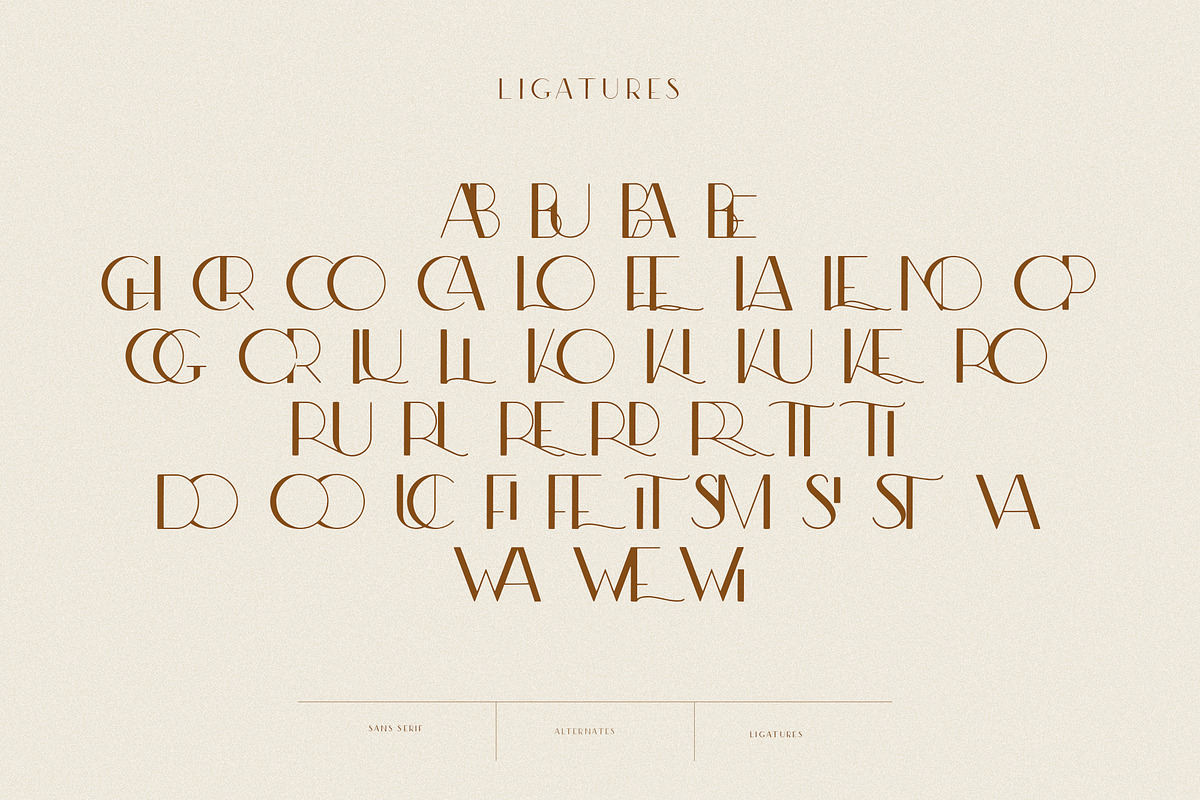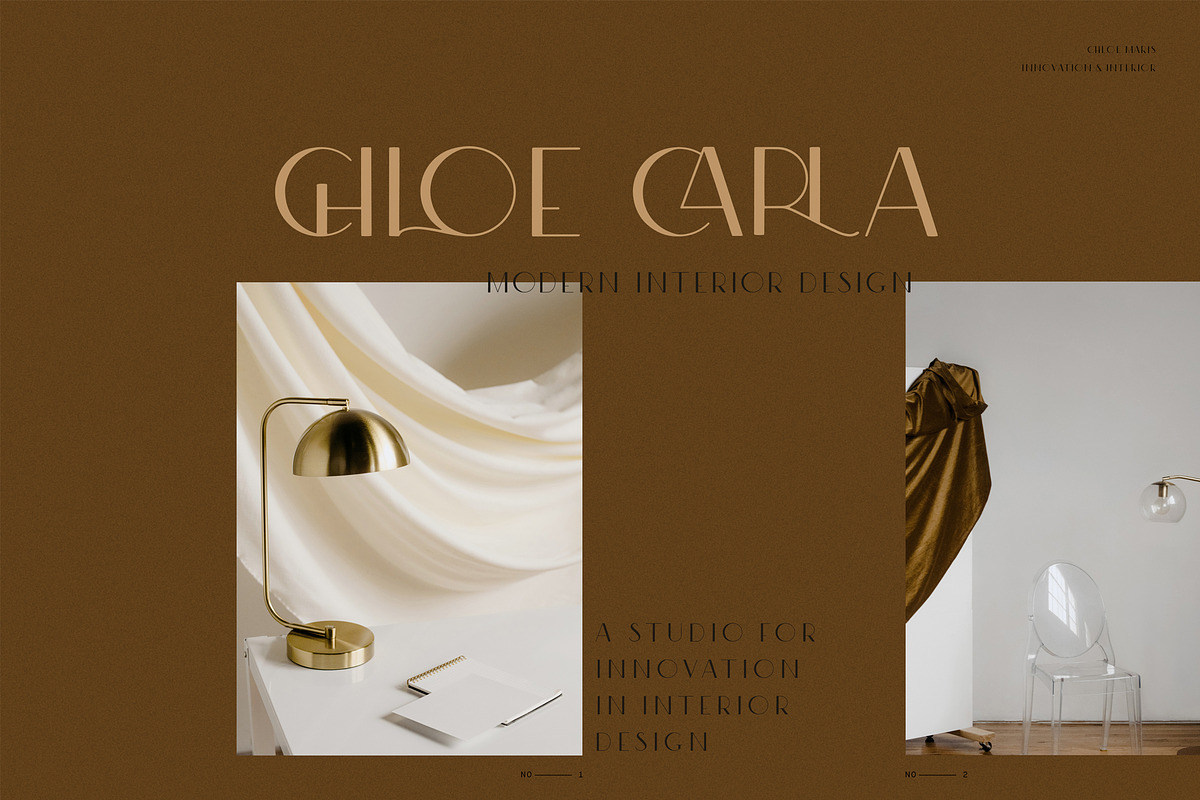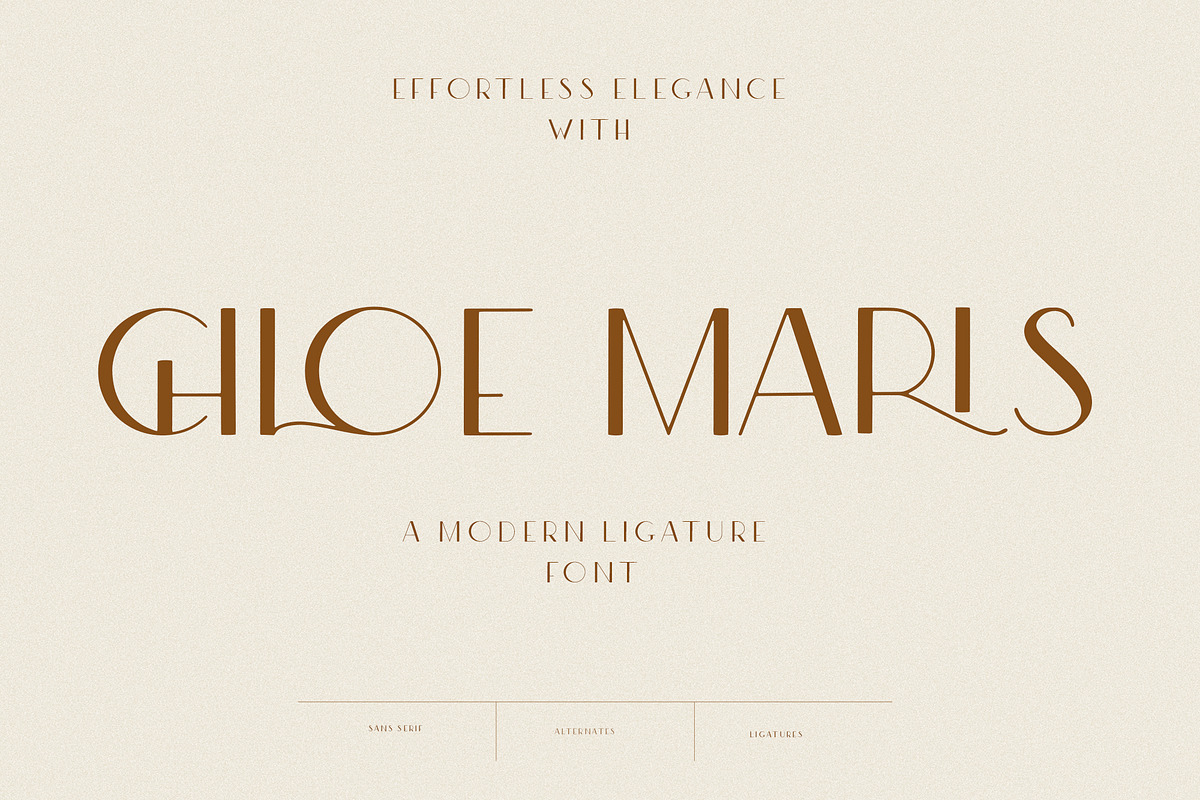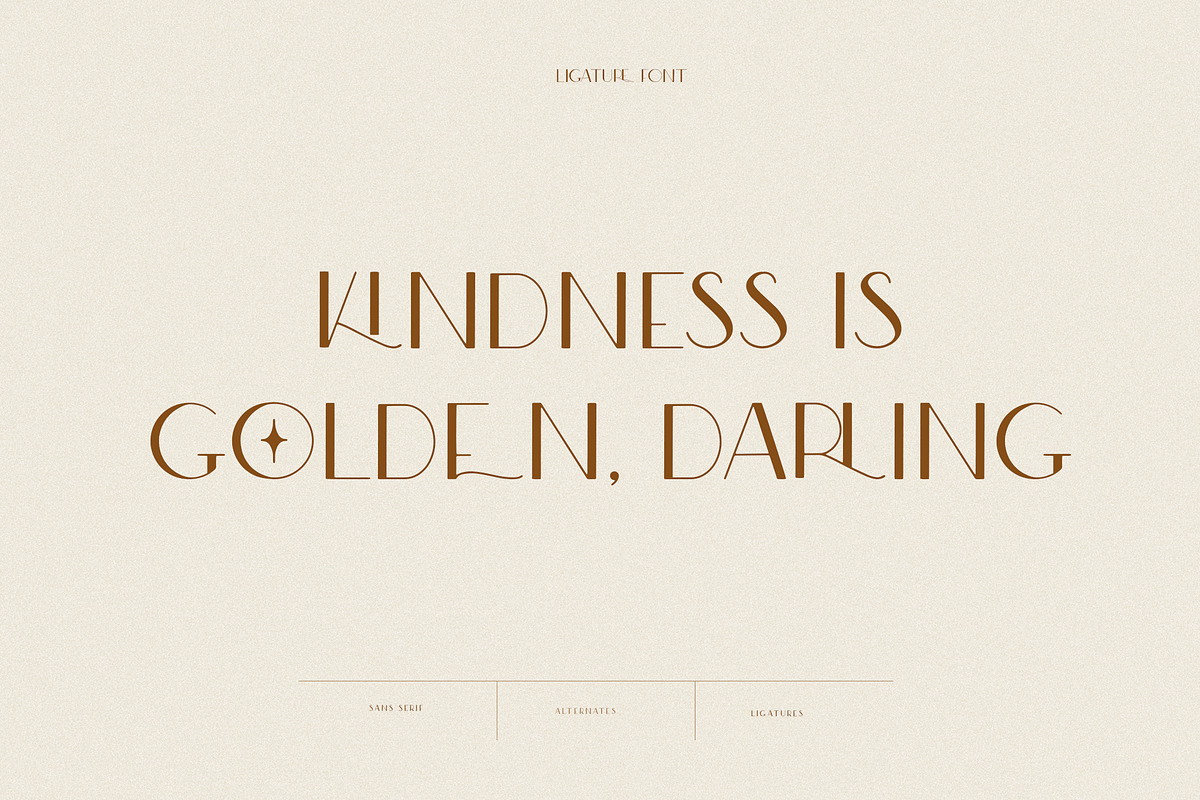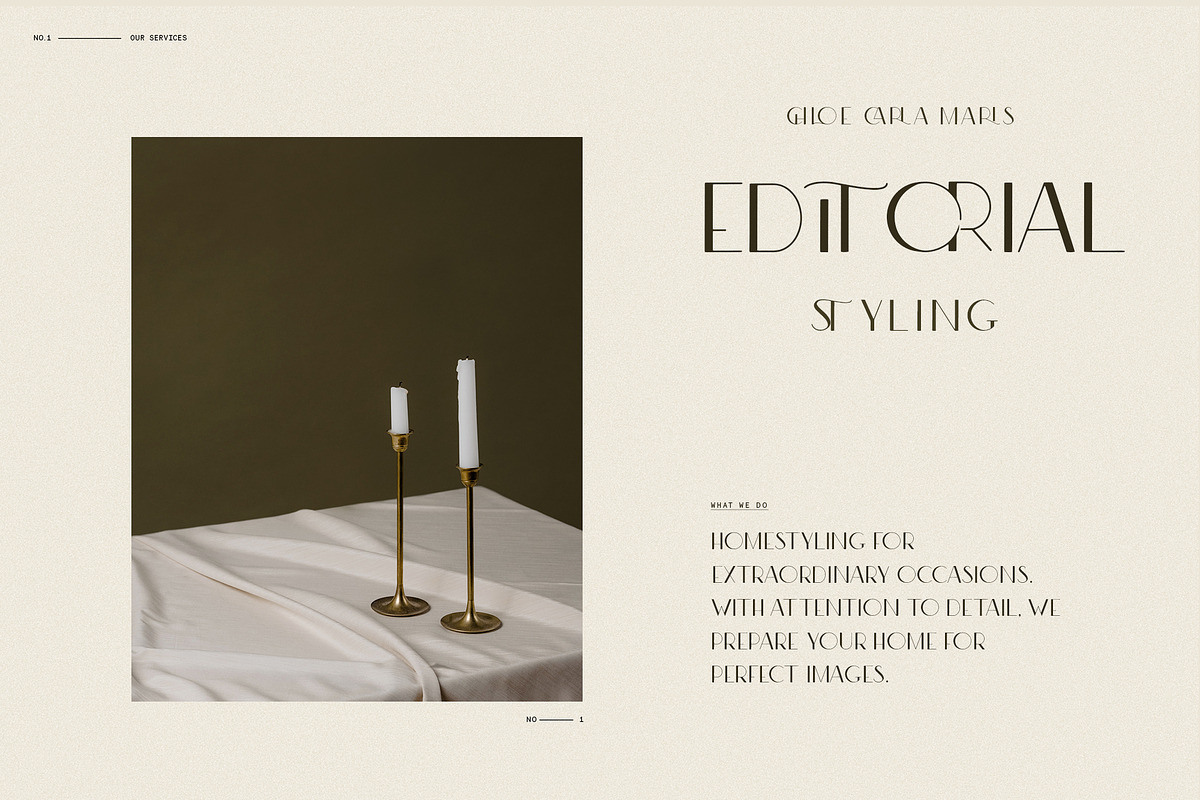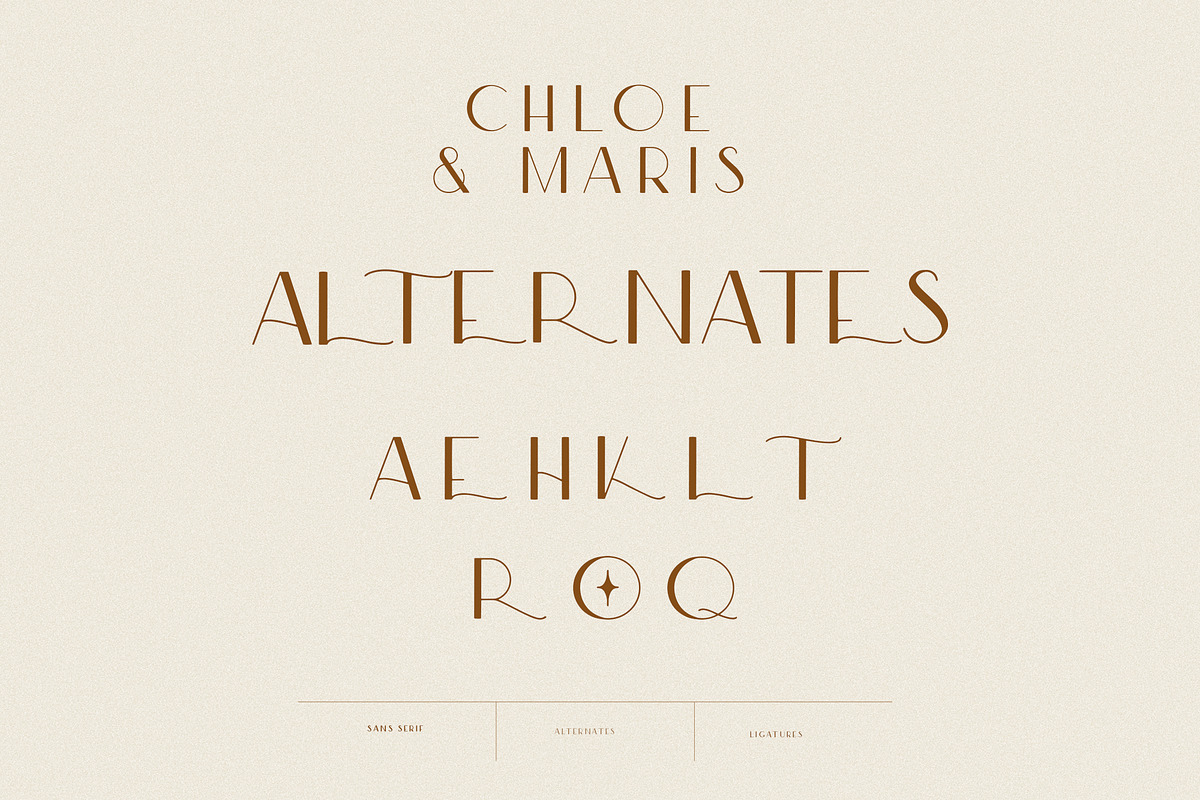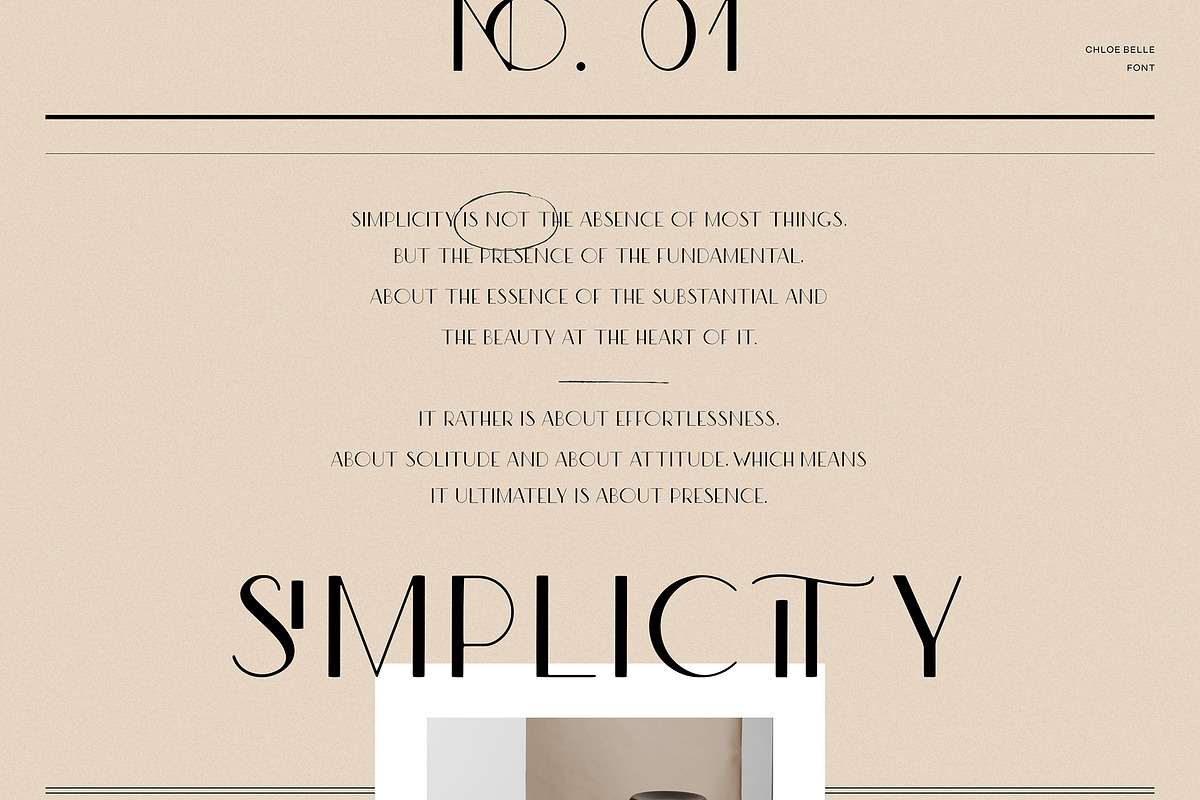
Modern Ligature Sans Serif Font
Chloe Maris is an elegant editorial style sans serif font, carefully crafted to add effortless elegance to your work. It comes with 50 ligatures and a variety of elegant alternates, which make the font extremely versatile. You can change it from a clean sans to a graceful accent font in a matter of minutes by turning on ligatures in Photoshop.
includes 50 discretionary ligatures and a variety of alternates that you can access through the characters panel
- It comes with 50 ligatures and a variety of elegant alternates, which make the font extremely versatile.
- You can change it from a clean sans to a graceful accent font in a matter of minutes by turning on ligatures in Photoshop.
Why Modern Ligature Sans Serif Font is worth a look